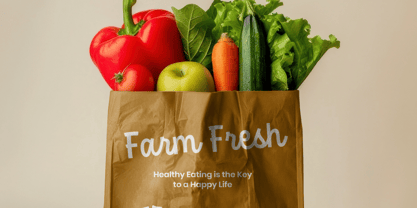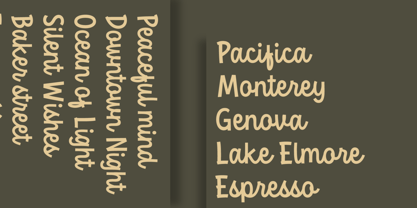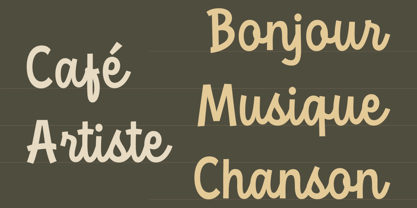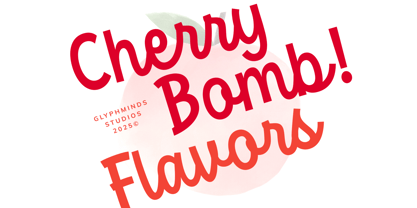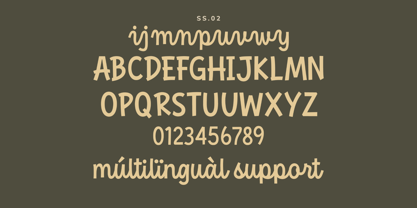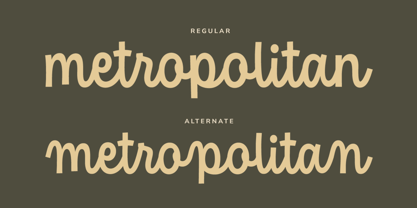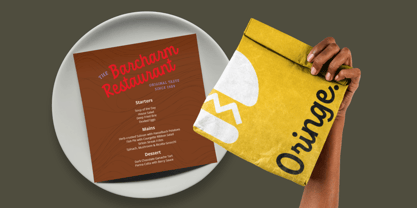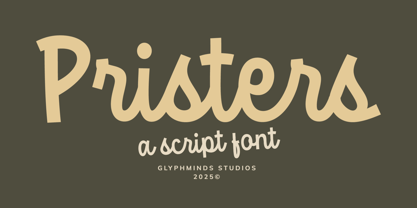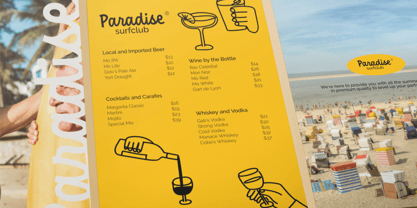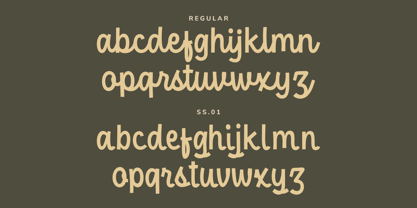
Pristers
The Pristers Font Family was designed by Baliya Ibnu Bi Malkan and published by Glyphminds Studios. Pristers contains 1 styles. More about this family
Meet Pristers, a delightfully bold and friendly script font that brings a touch of modern nostalgia to your designs. With its smooth, rounded letterforms and clean, flowing connections, Pristers is designed to be both impactful and incredibly versatile.
Inspired by the warm, groovy aesthetics of vintage branding, Pristers feels both classic and fresh. Its bold weight makes it perfect for creating eye-catching headlines, memorable logos, and stunning social media graphics that stop the scroll. Whether you're designing product packaging, crafting beautiful wedding invitations, or adding a personal touch to your quotes, Pristers delivers a warm, approachable, and effortlessly stylish look.
Easy to read and full of character, Pristers is your go-to font for projects that need a blend of retro charm and modern simplicity. Elevate your creative work and make a friendly statement with Pristers!